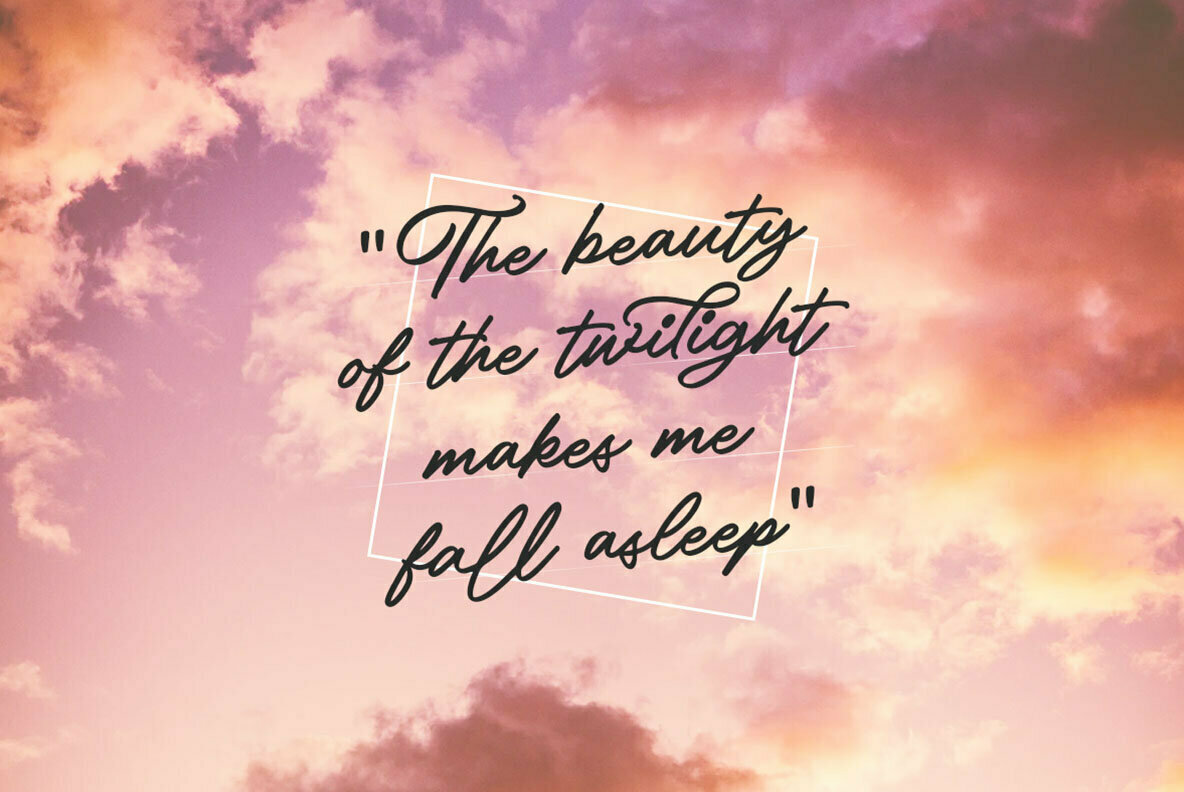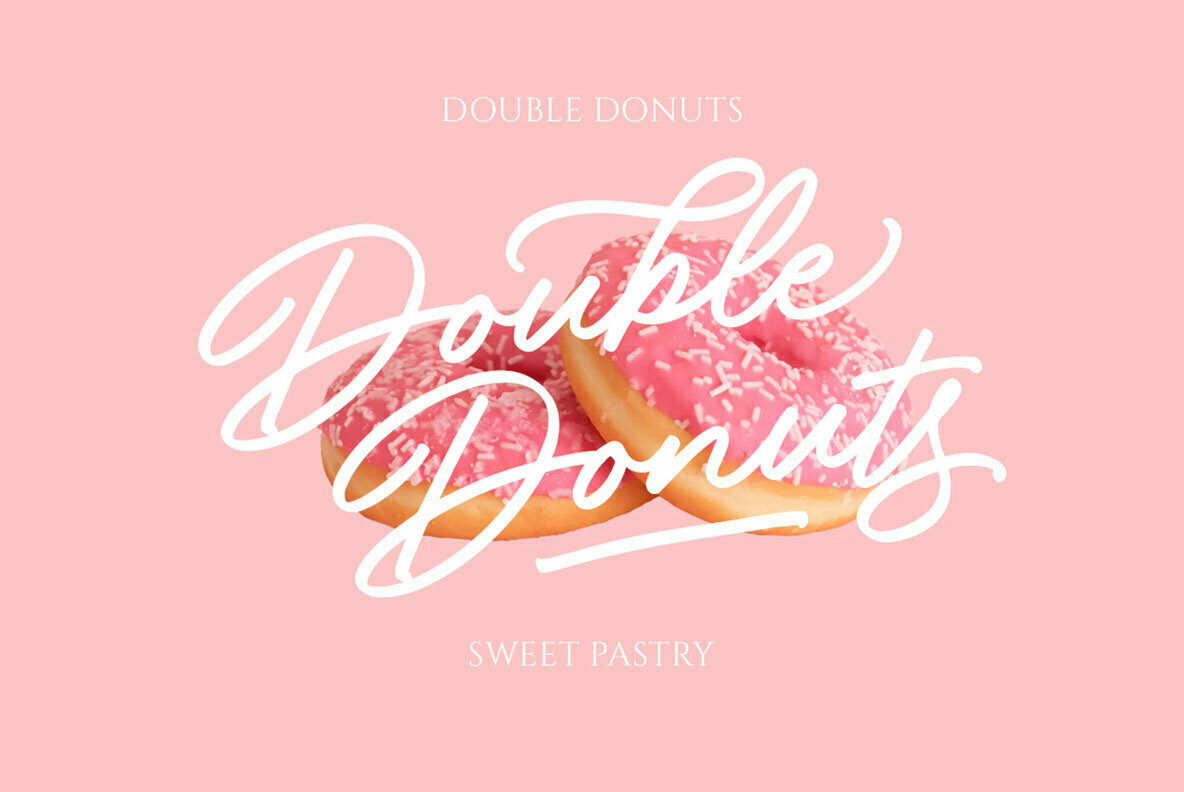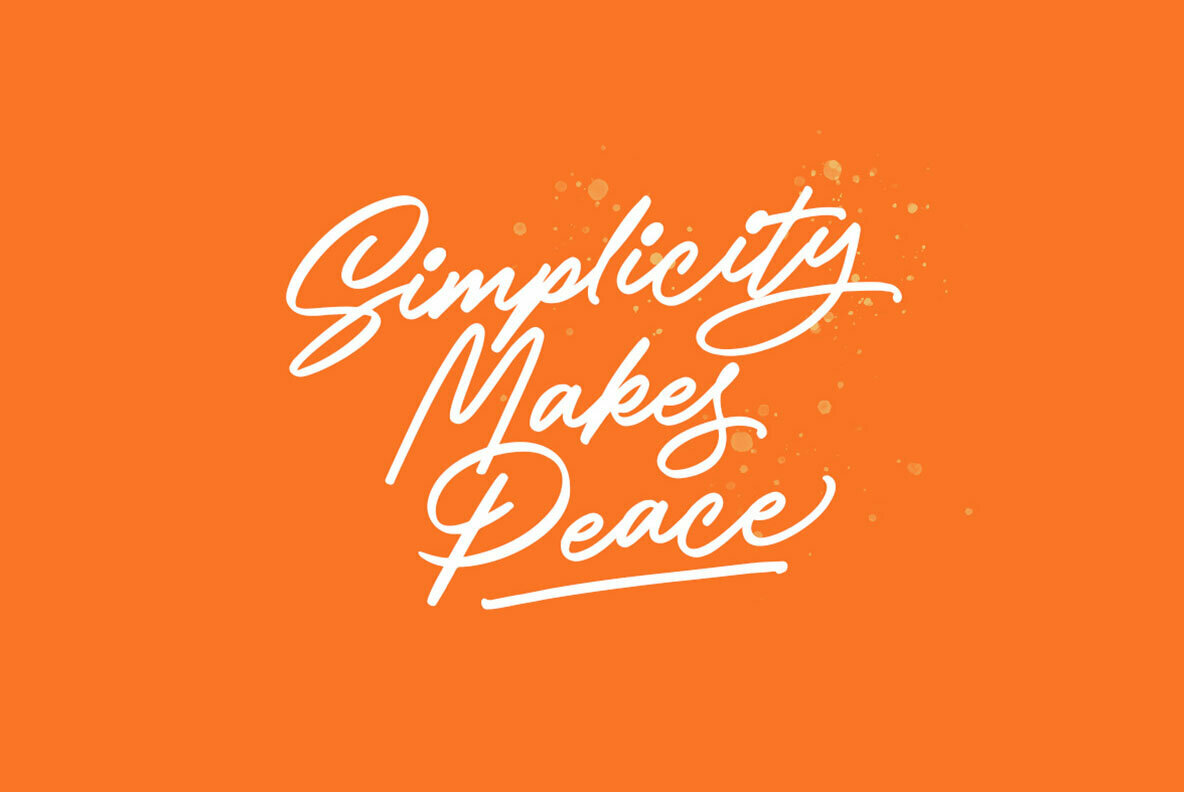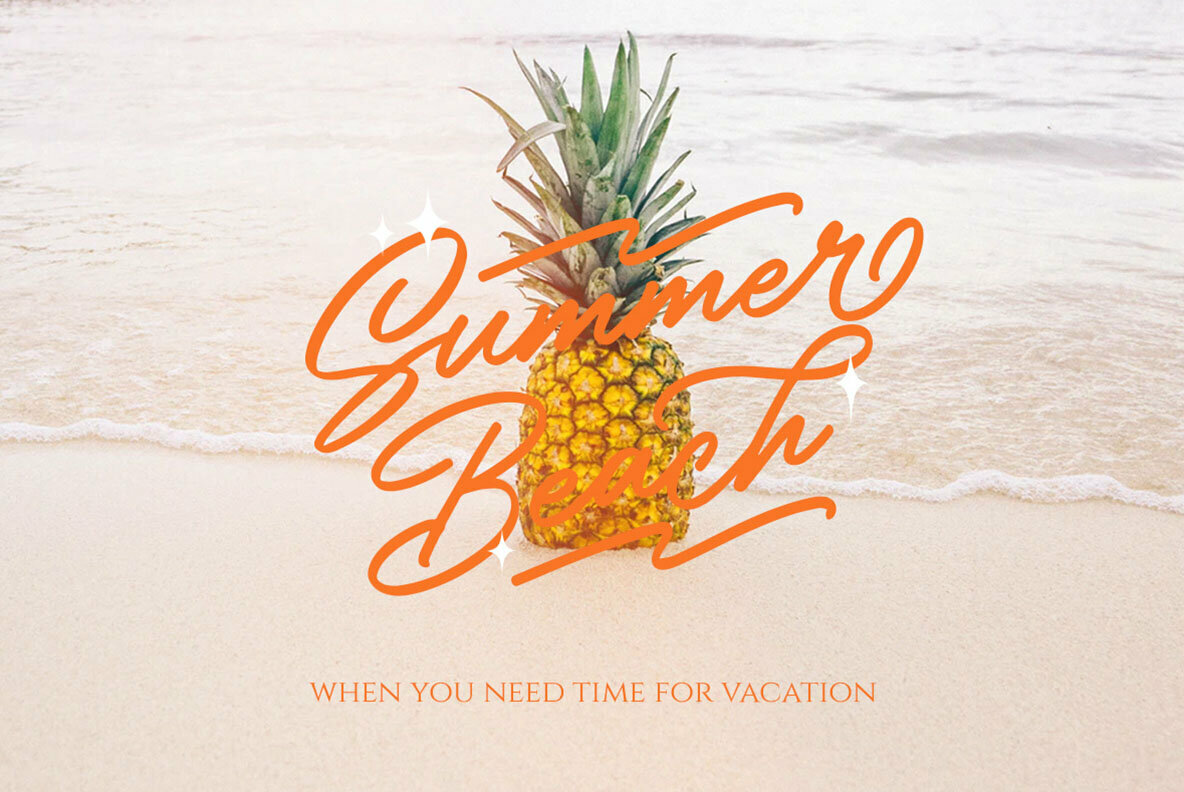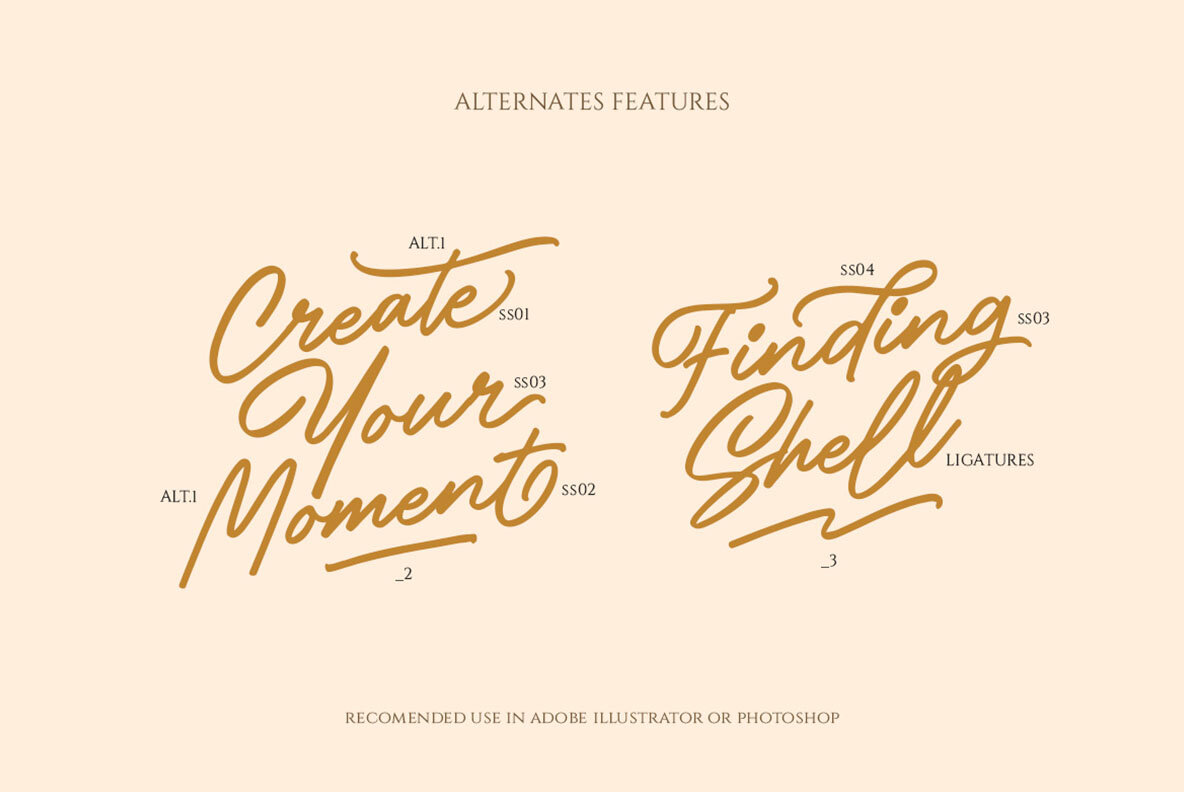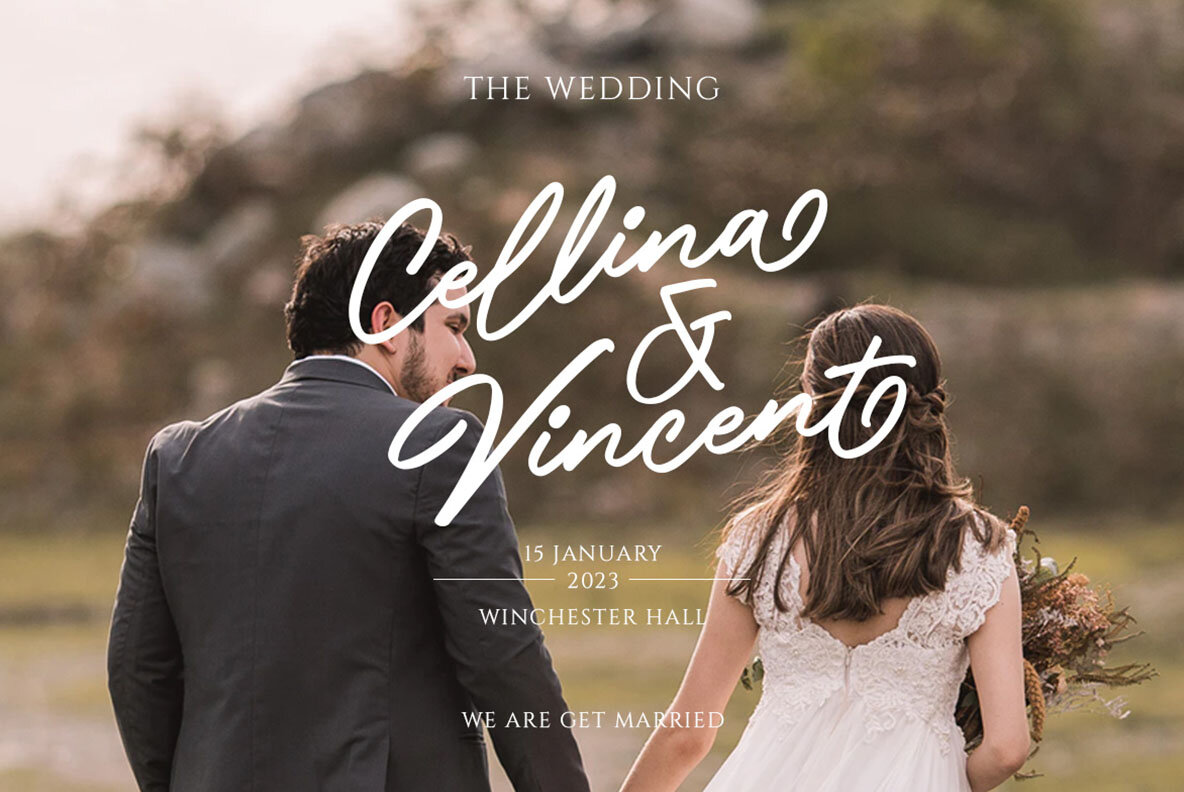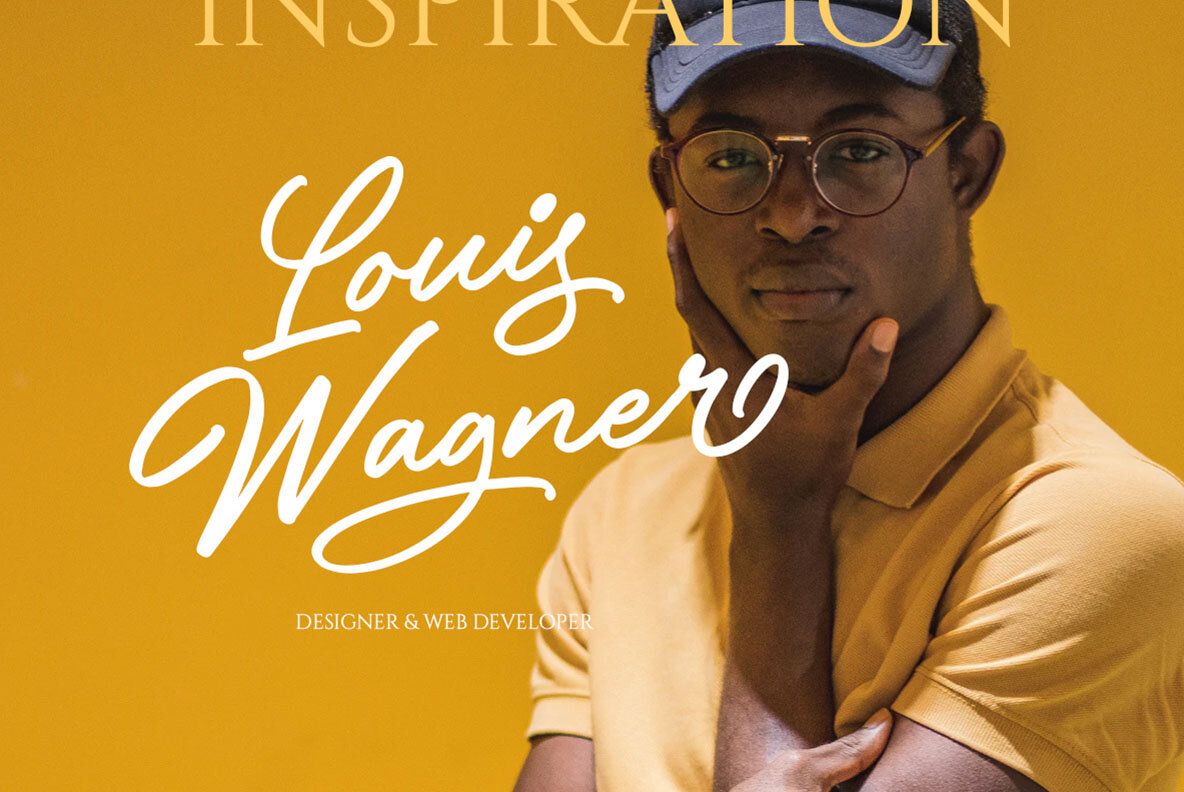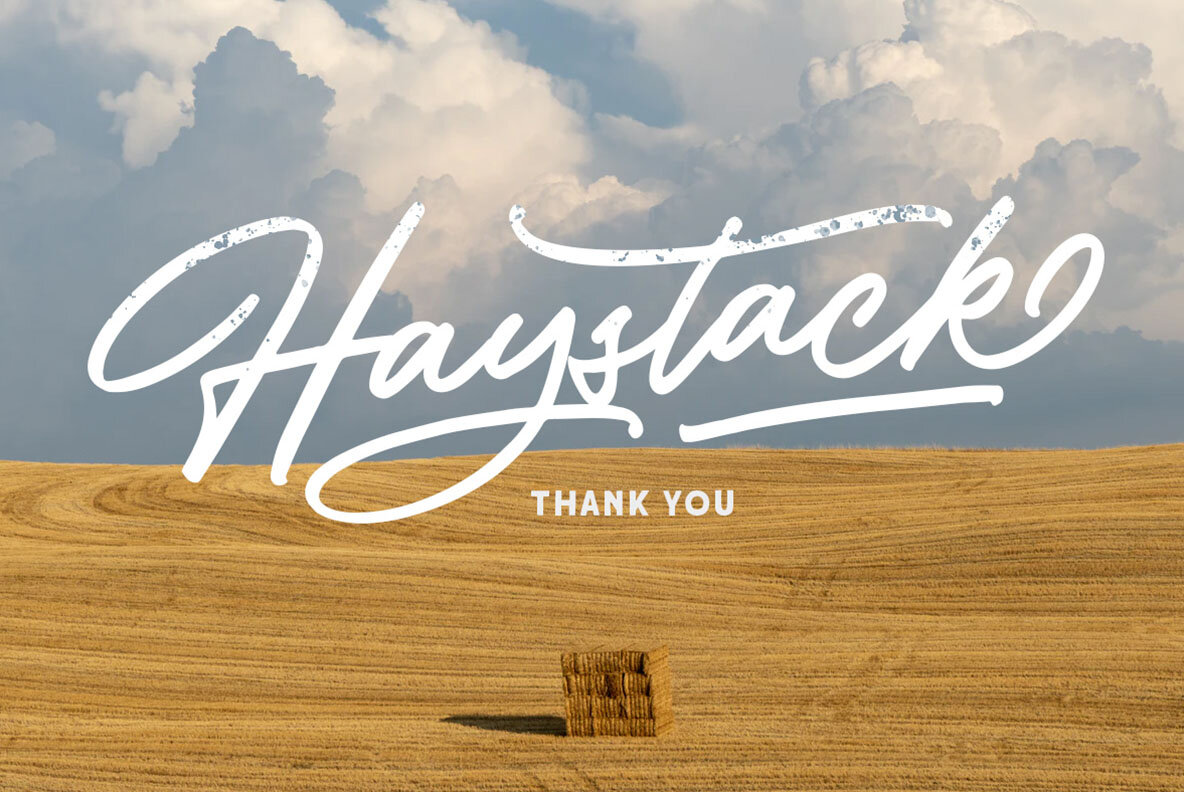
Haystack Font
Haystack Regular
Haystack offers a handwritten charm that is both elegant and versatile, perfect for adding a personal touch to any project. This script font seamlessly adapts to a range of applications, enhancing designs in logos, formal invitations, greeting cards, and advertising. Whether for a headline or a signature, Haystack brings sophistication and character to every creation. Utilize programs that support OpenType features, such as Adobe's suite or Corel Draw, to access the full range of glyph variations. For more on using OpenType features, visit ....Haystack: A Handwritten Script with Versatility